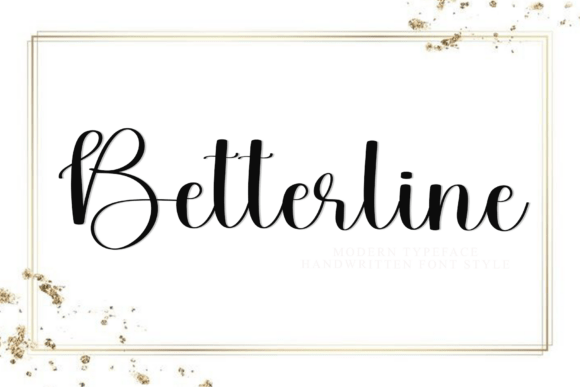
Betterline Font: A Festive and Merry Typeface for the Holiday Season
The holiday season is upon us, and what better way to get into the spirit than with a font that’s as festive and merry as Betterline Font? This decorative typeface is designed to capture the magic of the holiday season, with its whimsical flair and enchanting elements. In this article, we’ll take a closer look at Betterline Font, its features, and how you can use it to add a touch of nostalgia and cheer to your designs.
What is Betterline Font?
Betterline Font is a beautifully crafted typeface that’s perfect for holiday-themed projects. Its decorative elements and whimsical flair make it an ideal choice for greeting cards, gift tags, and other festive designs. With its unique and enchanting style, Betterline Font is sure to bring a smile to anyone’s face.
Benefits of Using Betterline Font
There are many benefits to using Betterline Font in your designs. Here are just a few:
- Festive and Merry: Betterline Font is designed to capture the spirit of the holiday season. Its festive and merry style is perfect for creating holiday-themed designs that will put a smile on anyone’s face.
- Decorative Elements: Betterline Font features decorative elements that add a touch of enchantment to your designs. From swirling patterns to festive symbols, this font has everything you need to create beautiful and eye-catching designs.
- Whimsical Flair: Betterline Font has a whimsical flair that’s perfect for creating designs that are a little bit playful and fun. Whether you’re creating greeting cards, gift tags, or other festive designs, this font is sure to add a touch of personality to your work.
Uses for Betterline Font
Betterline Font is a versatile typeface that can be used in a variety of different ways. Here are just a few ideas to get you started:
- Greeting Cards: Betterline Font is perfect for creating festive and merry greeting cards for the holiday season. Whether you’re creating Christmas cards, Hanukkah cards, or other holiday greetings, this font is sure to add a touch of cheer to your designs.
- Gift Tags: Betterline Font is also great for creating gift tags that are a little bit special. With its decorative elements and whimsical flair, this font is sure to add a touch of personality to your gifts.
- Holiday-Themed Projects: Betterline Font is perfect for any holiday-themed project. Whether you’re creating a festive website, a holiday brochure, or other festive designs, this font is sure to bring a touch of magic to your work.
Tips for Using Betterline Font
Here are a few tips for using Betterline Font in your designs:
- Use it Sparingly: Betterline Font is a decorative typeface that’s perfect for adding a touch of festivity to your designs. However, it’s best to use it sparingly to avoid overwhelming your designs.
- Experiment with Colors: Betterline Font looks great in a variety of different colors. Experiment with different colors and combinations to find the one that works best for your design.
- Pair it with Other Fonts: Betterline Font can be paired with other fonts to create a unique and eye-catching design. Try pairing it with a simple sans-serif font to create a beautiful contrast.
Betterline Font is a beautifully crafted typeface that’s perfect for the holiday season. With its decorative elements, whimsical flair, and PUA encoding, this font is sure to bring a touch of magic to your designs. Whether you’re creating greeting cards, gift tags, or other festive designs, Betterline Font is the perfect choice. So why not give it a try and see what amazing designs you can create?